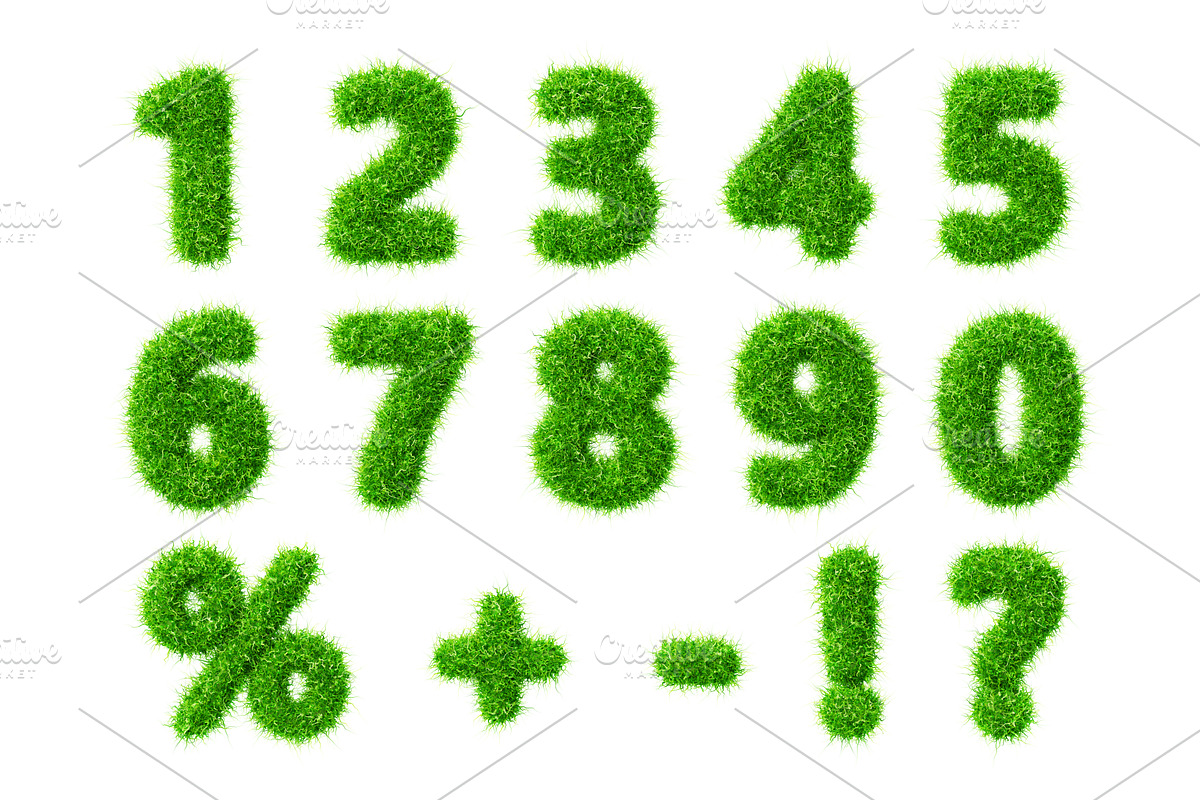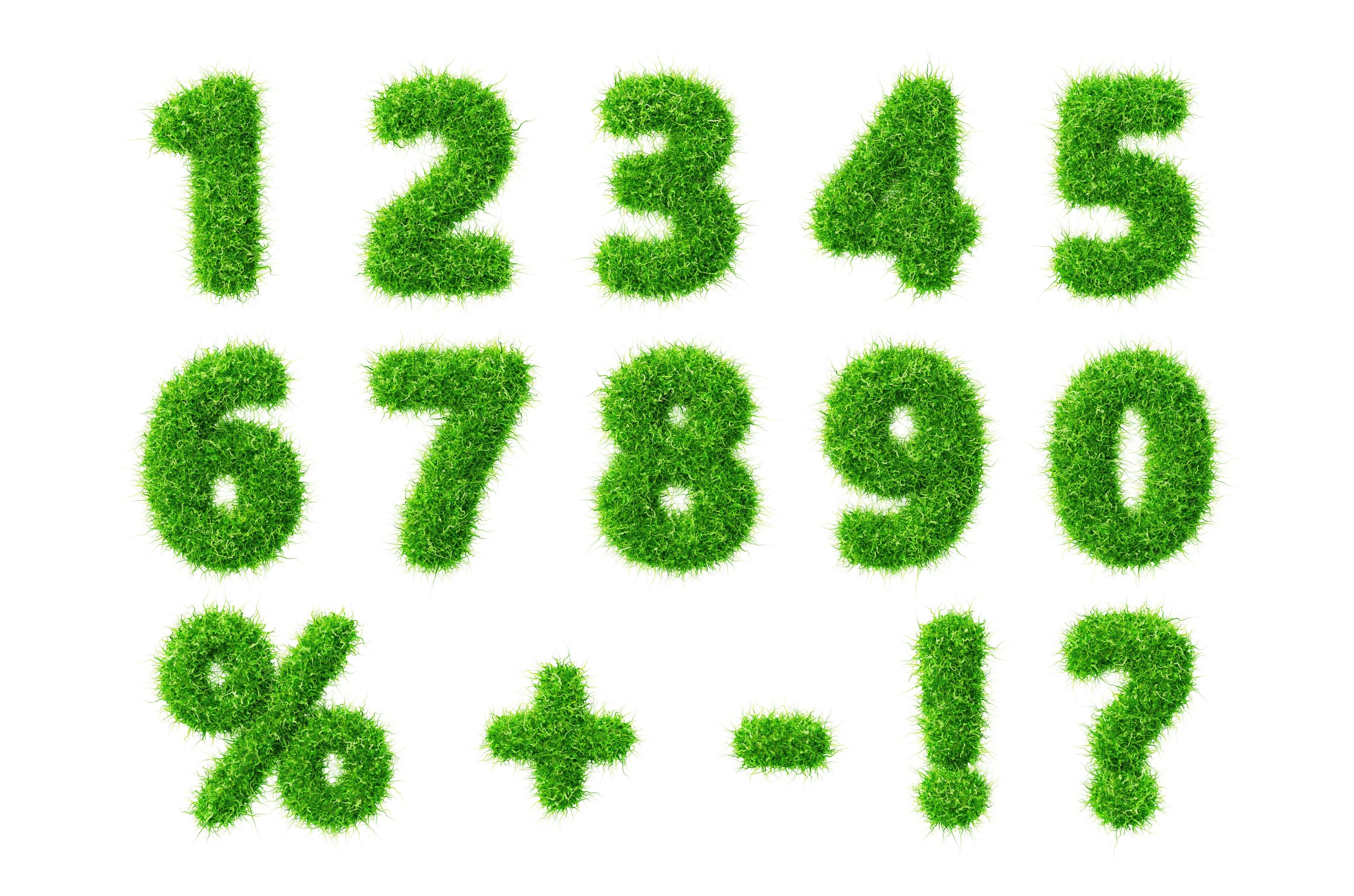
3d green grass font, fur fluffy
3d green grass font, fur fluffy numbers from 0 to 9. Fresh plant digits, percent sign, question mark, exclamation, plus, minus symbol with soft greenery moss texture. Nature, ecology. 3D illustration